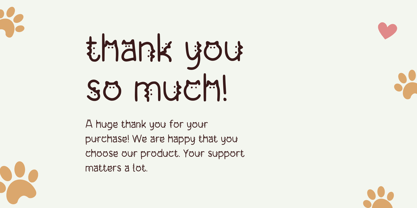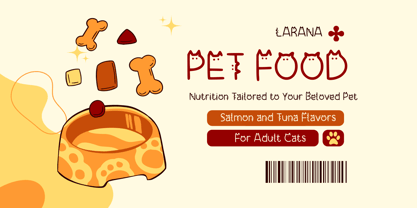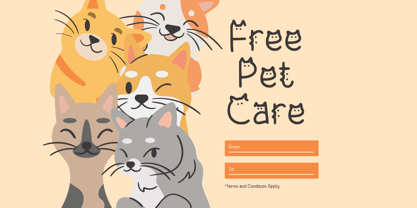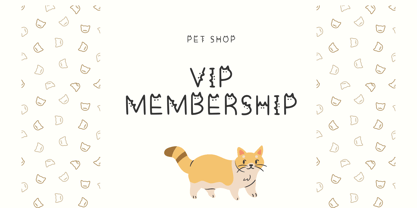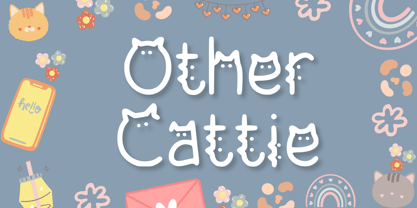
Other Cattie
by Aisyah
The Other Cattie Font Family was designed by Nur Aiysah Amalia and published by Aisyah. Other Cattie contains 1 styles. More about this family
Elevate your designs with the purr-fect blend of quirk and charm that only "Other Cattie" can provide. This distinct font embodies the whimsical aura of our beloved feline companions, making it an ideal choice for imaginative and artistic projects. "Other Cattie" breaks free from conventional font offerings, artfully integrating cat silhouettes to add a delightful and personal touch across various design landscapes. Discover the heartwarming charisma of "Other Cattie," where each keystroke resonates with unique personality and visual appeal, ensuring your work truly stands out. Perfect for branding, web design, and editorial use, this font family offers versatility and creativity, making it a must-have for any designer's toolkit.
Designers: Nur Aiysah Amalia
Foundry: Aisyah